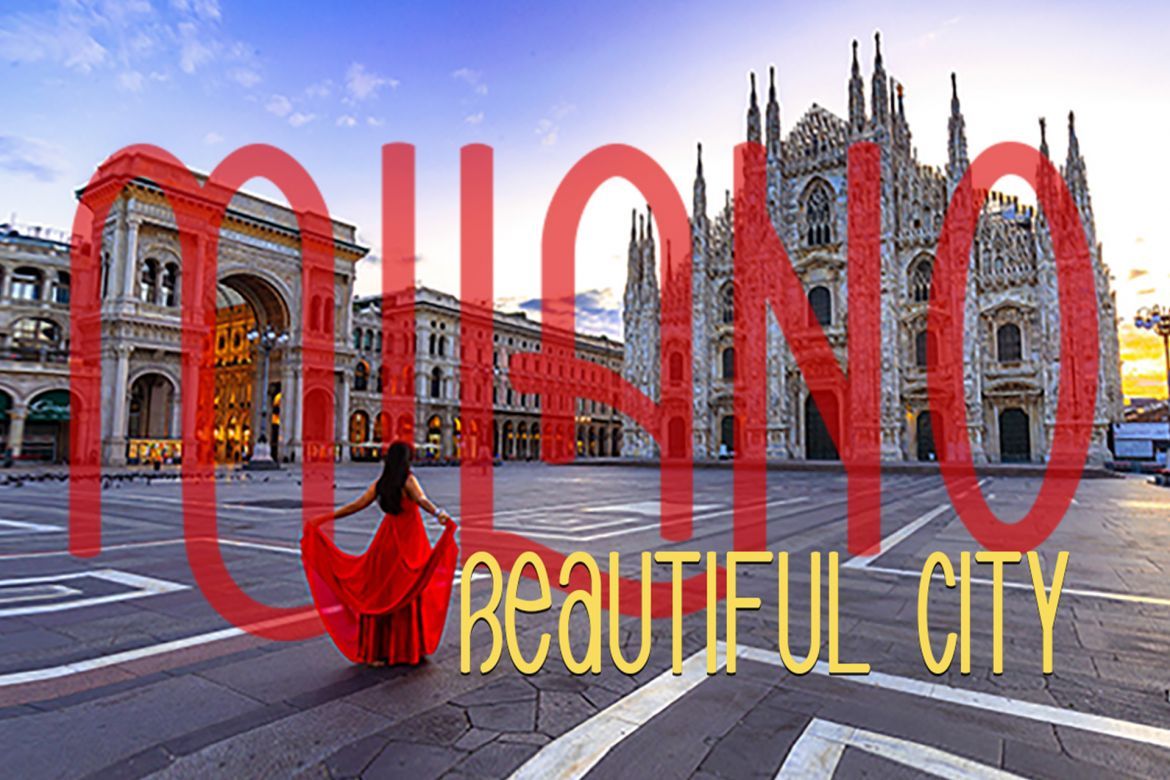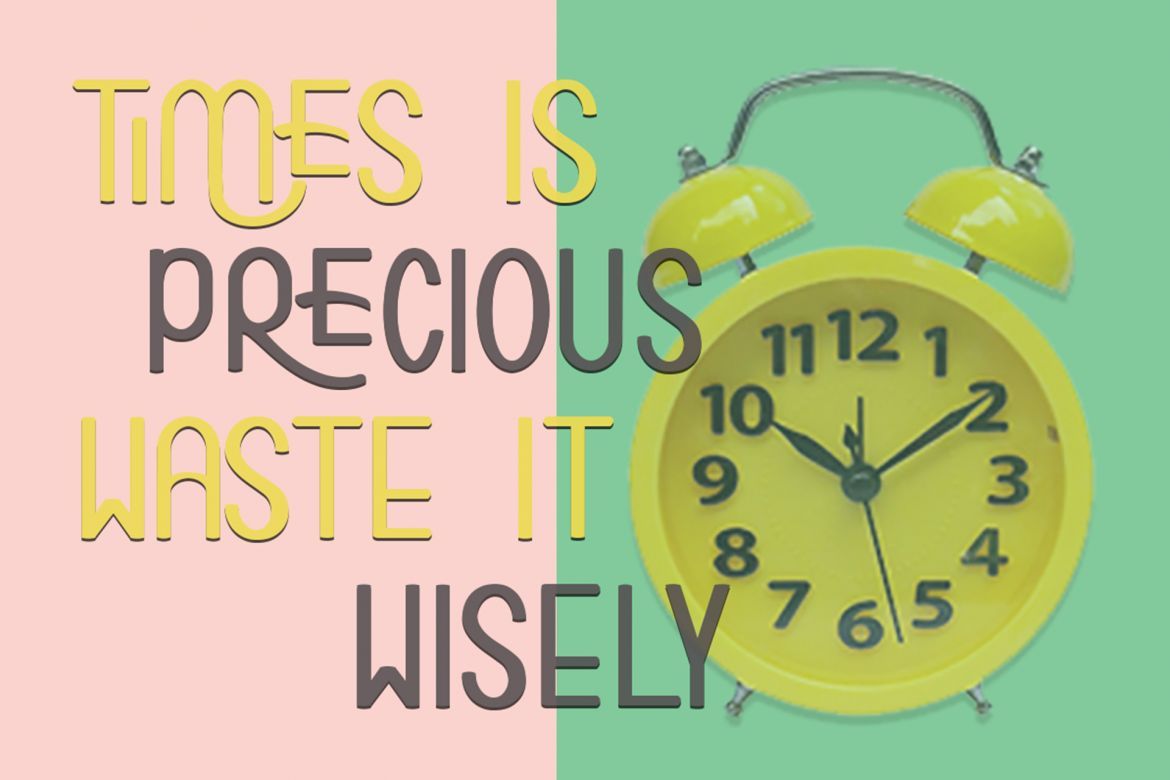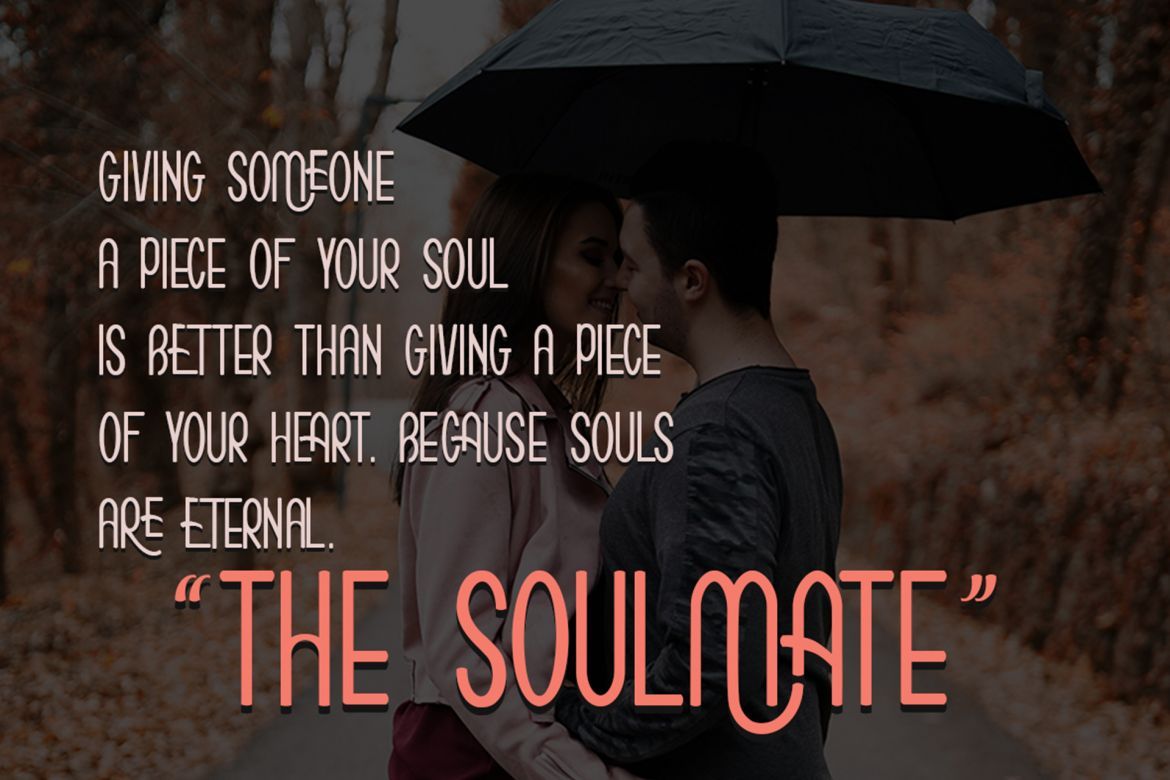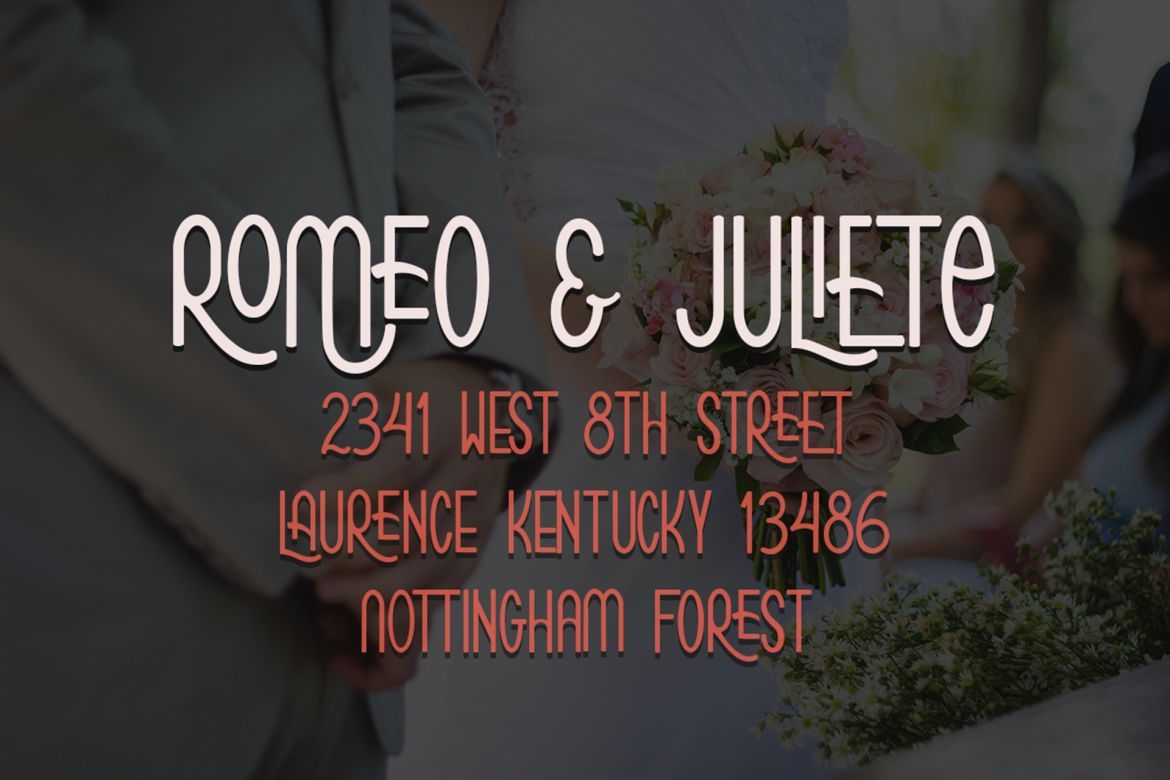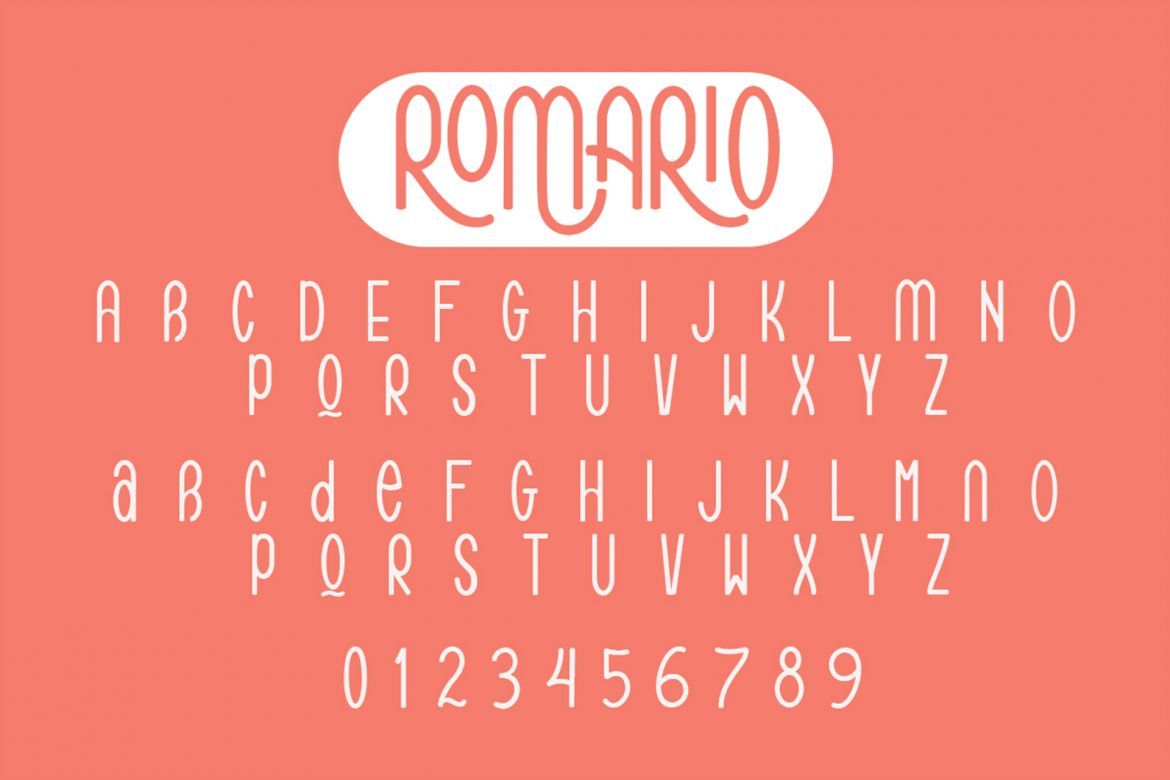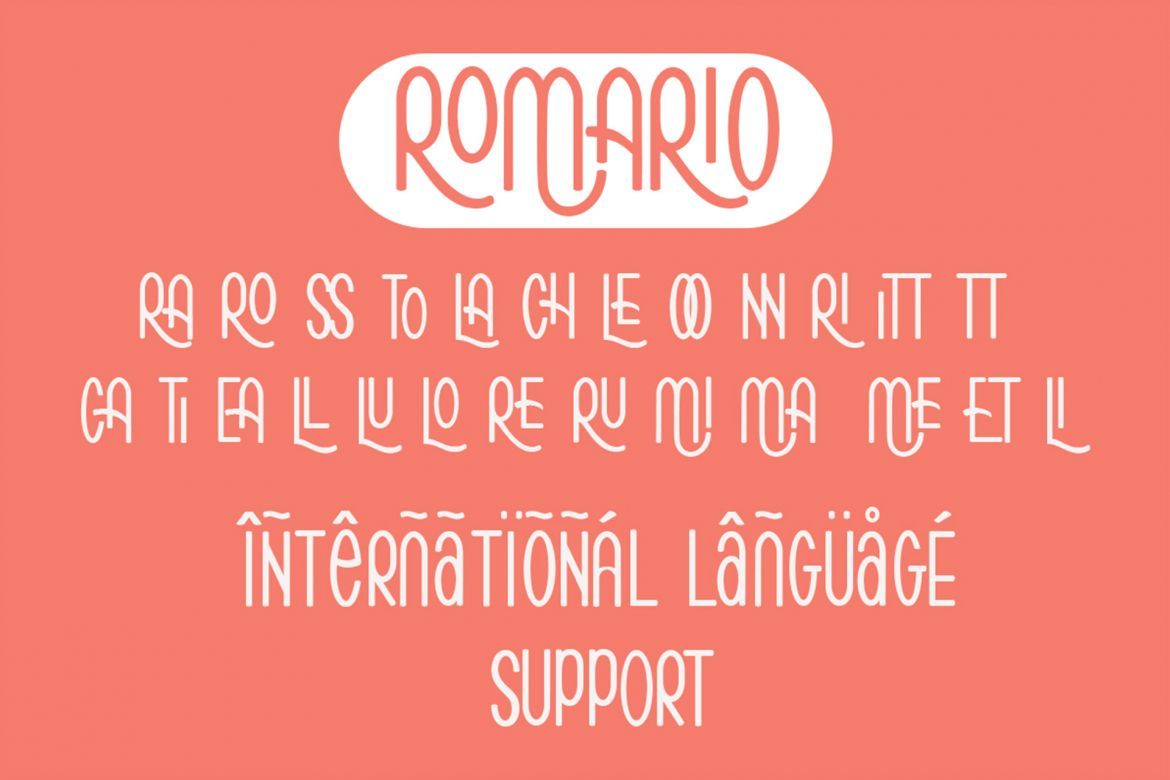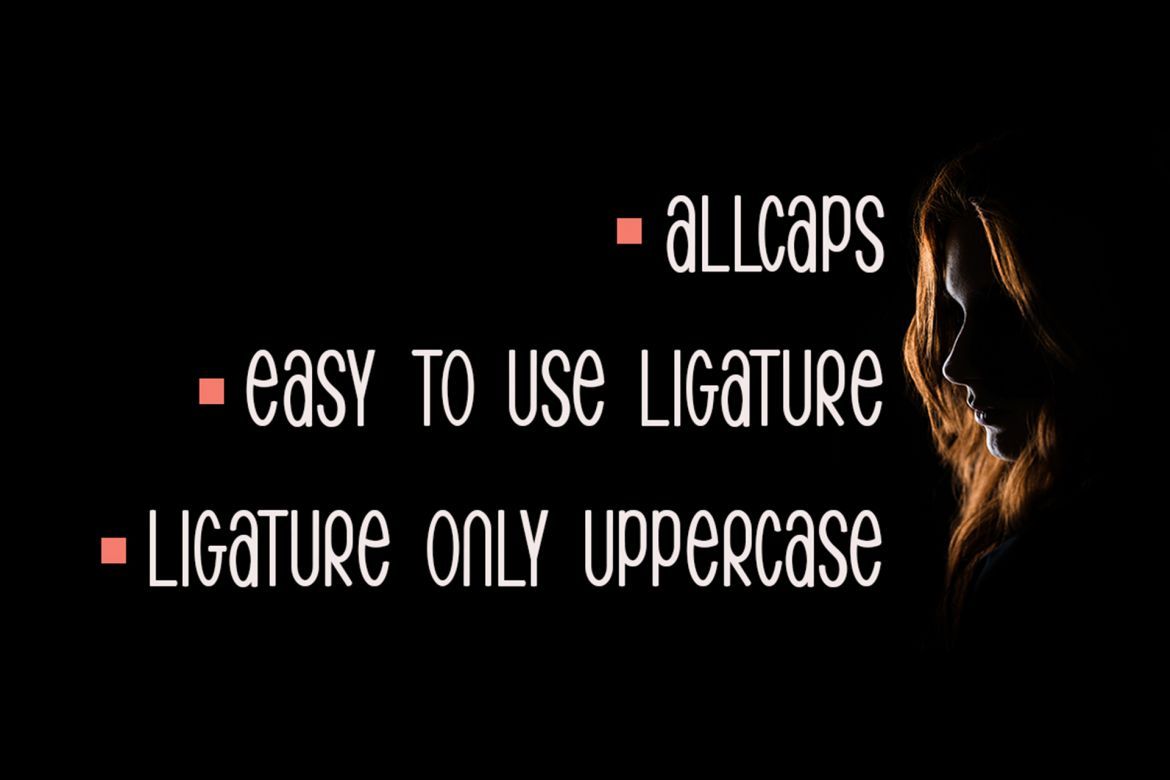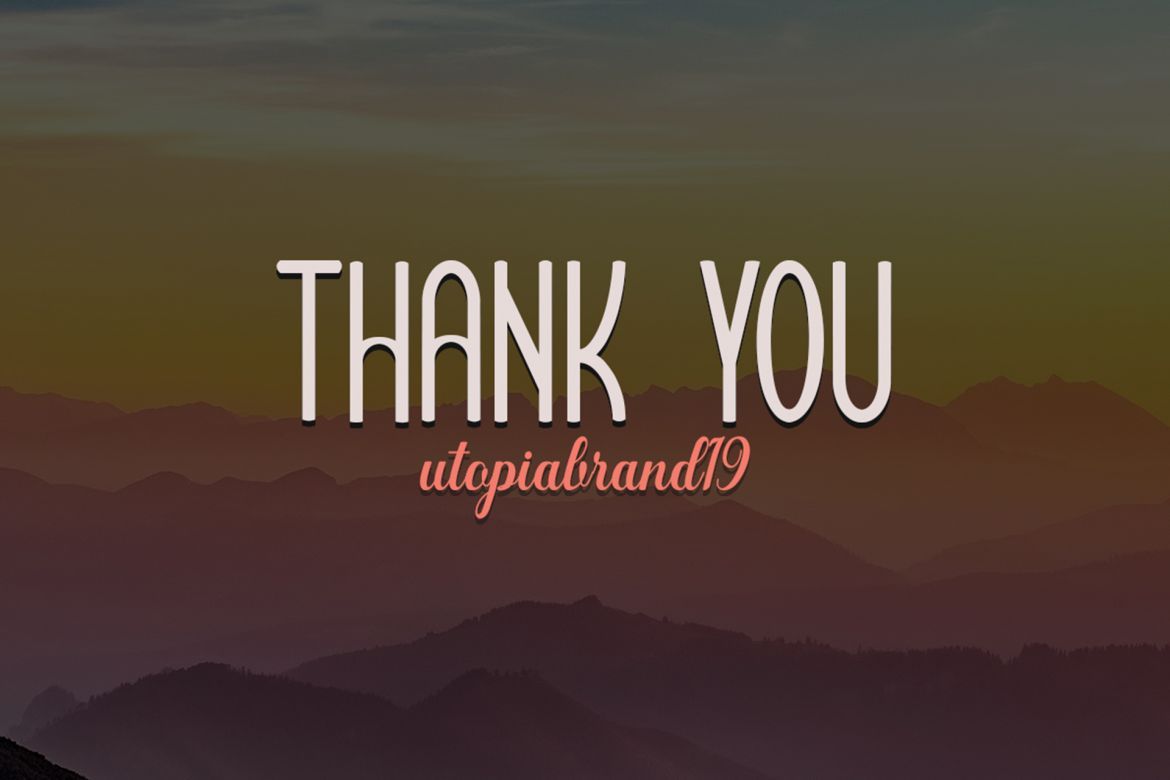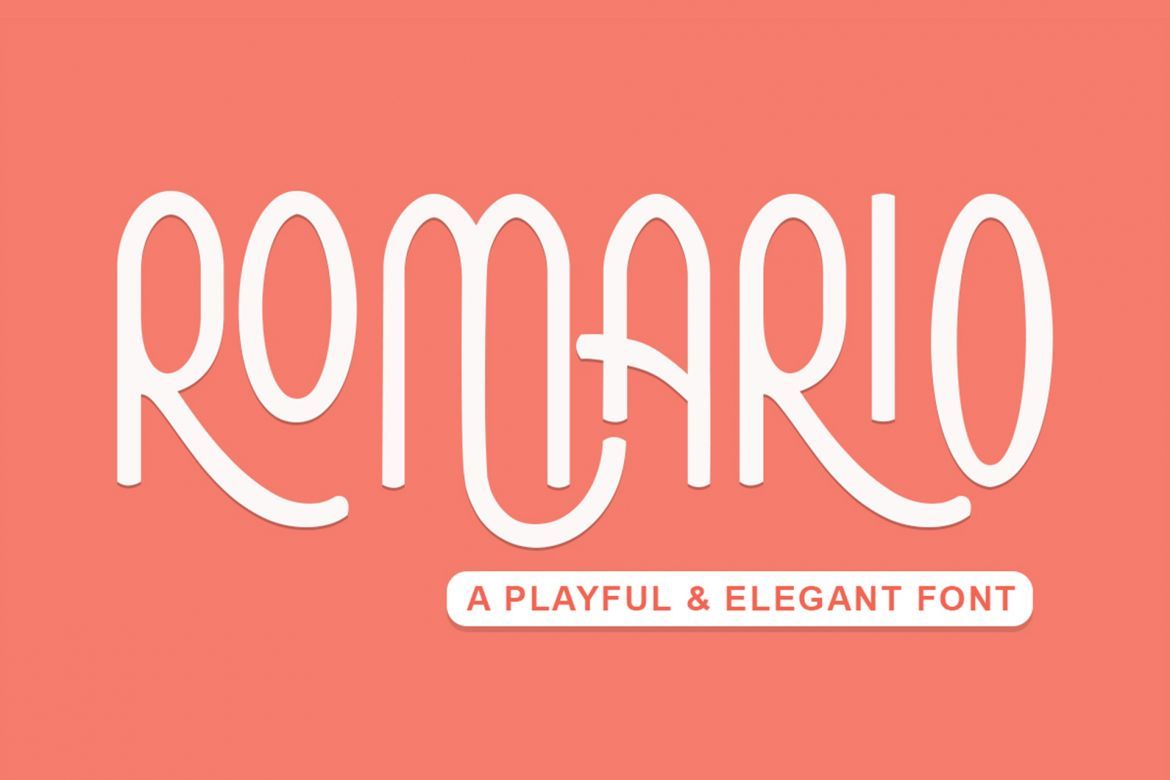
Romario Font
Romario is a beautiful and light display font with a cool vibe. Use it to add a modern feel to any design project! Romario including initial and terminal letters, alternates, stylistic alternate, ligatures and multiple language support.
• a variety of alternative styles allow versatile design options and work perfectly for headlines, logos, posters, packaging, t-shirts, postcards and more.